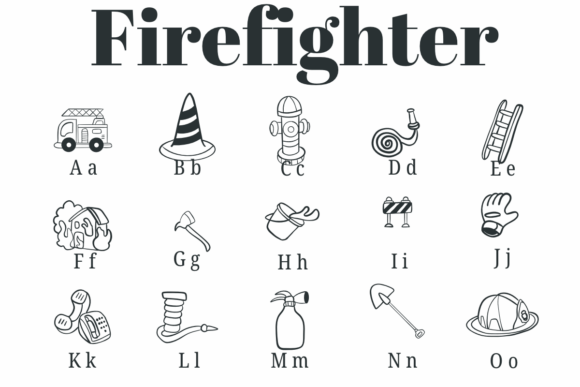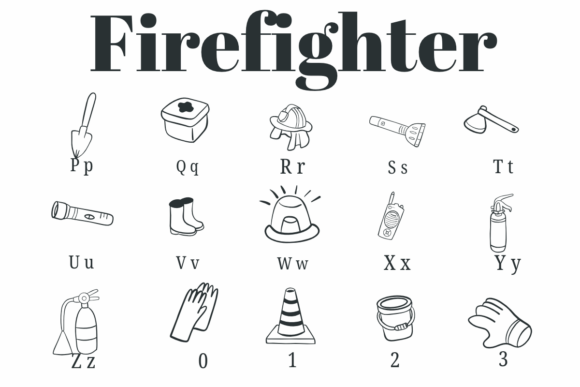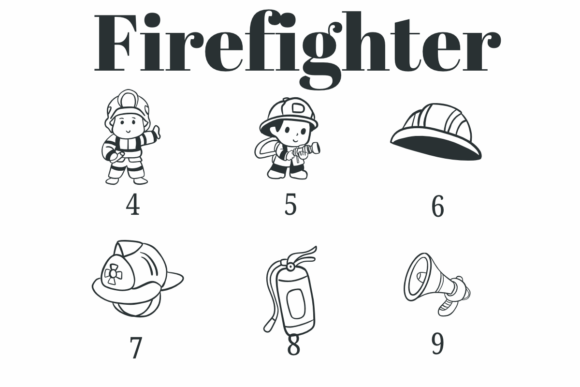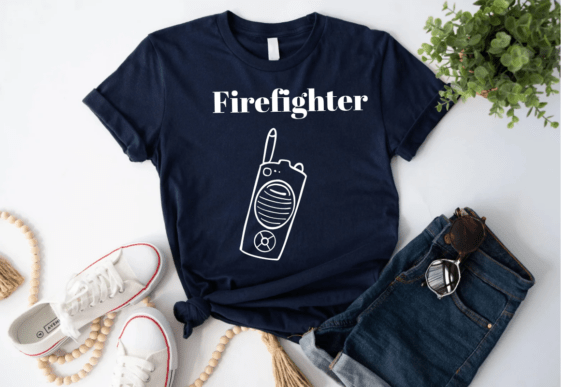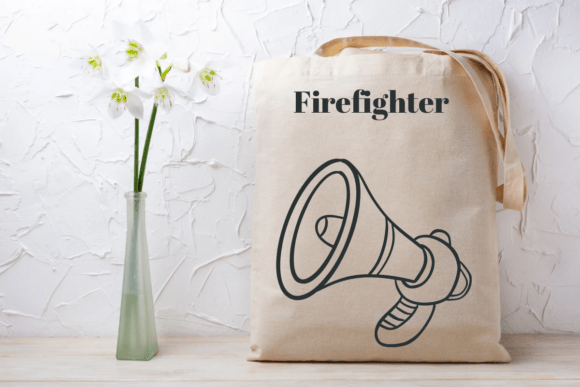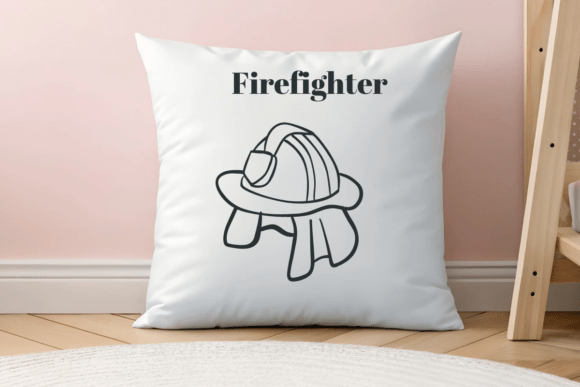
Ignite Your Designs with Firefighter Font: A Sketchy Dingbats Font
Are you a designer, crafter, or DIY enthusiast looking for a unique font to add a touch of personality to your creative projects? Look no further than the Firefighter font, a dingbats font with a theme that’s sure to spark your imagination. This sketch-style font is perfect for a wide range of applications, from wedding invitations and decorations to logos and crafts.
What is Firefighter Font?
Firefighter font is a dingbats font, which means it’s a type of font that features symbols, icons, and glyphs rather than traditional letters and numbers. This font takes the theme of firefighting and turns it into a unique and versatile alphabet that’s perfect for designers and crafters. The sketch-style design gives the font a hand-drawn, organic feel that’s perfect for adding a touch of personality to your projects.
What Can I Use Firefighter Font For?
The possibilities are endless with Firefighter font. Here are just a few ideas to get you started:
- Wedding Invitations: Add a touch of whimsy and romance to your wedding invitations with Firefighter font. Use it to highlight special details like “Save the Date” or “Reception to Follow.”
- DIY Projects: Firefighter font is perfect for DIY enthusiasts who love to craft and create. Use it to add a personal touch to your projects, from scrapbooking to woodworking.
- Decorations: Use Firefighter font to create custom decorations for parties, events, and special occasions. From banners and signs to garlands and gift tags, this font is sure to add a pop of personality to your decor.
- Logos and Branding: Firefighter font is also perfect for designers who need a unique font for logos and branding projects. Use it to create a memorable and eye-catching logo that’s sure to stand out.
Why Choose Firefighter Font?
So why choose Firefighter font over other dingbats fonts? Here are just a few reasons:
- Unique Design: Firefighter font features a unique and eye-catching design that’s sure to add a touch of personality to your projects.
- Versatility: This font is versatile and can be used for a wide range of applications, from wedding invitations to logos and branding.
- Sketch-Style Design: The sketch-style design gives the font a hand-drawn, organic feel that’s perfect for adding a touch of personality to your projects.
Tips for Using Firefighter Font
Here are a few tips for using Firefighter font in your designs:
- Mix and Match: Don’t be afraid to mix and match Firefighter font with other fonts to create a unique and eye-catching design.
- Experiment with Colors: Firefighter font looks great in a variety of colors, so don’t be afraid to experiment and find the perfect hue for your project.
- Use it Sparingly: While Firefighter font is eye-catching, it can be overwhelming if used too much. Use it sparingly to add a touch of personality to your design.
Firefighter font is a unique and versatile dingbats font that’s perfect for designers, crafters, and DIY enthusiasts. With its sketch-style design and firefighting theme, this font is sure to add a touch of personality to your creative projects. Whether you’re creating wedding invitations, decorations, logos, or crafts, Firefighter font is the perfect choice. So why wait? Download Firefighter font today and ignite your designs!